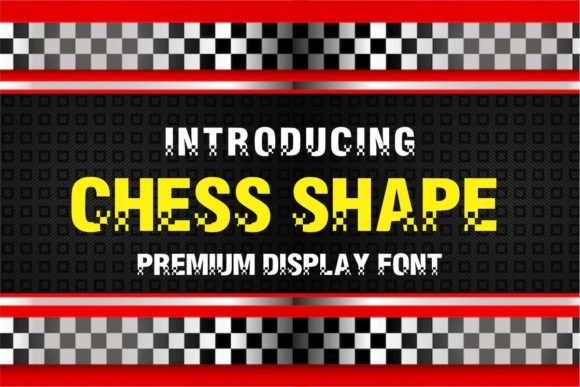
Checkmate Your Designs with the Chess Shape Font
Have you ever found yourself lost in the world of chess, only to have a brilliant idea strike you in the middle of a game? The thrill of victory, the agony of defeat – it’s all part of the chess experience. But what if you could capture that same essence of strategy and tactics in your designs? Introducing the Chess Shape Font, a decorative font that’s perfect for adding a touch of chess-inspired flair to your creative projects.
This font is not just for chess enthusiasts; it’s a valuable tool for designers looking to add a unique twist to their work. Whether you’re creating a game-themed logo, designing a t-shirt, or crafting a background for a website, the Chess Shape Font can help bring your ideas to life. With its chess-style design, it’s the perfect addition to any project that needs a touch of sophistication and strategy.
Key Features of Chess Shape Font
- Unique Character Set: Chess Shape Font features a custom-designed set of characters, including chess pieces, boards, and other related symbols, making it ideal for chess-themed projects.
- Legibility: Despite its unique character set, Chess Shape Font is designed to be highly legible, ensuring that the text remains clear and readable even at smaller font sizes.
Designer Review: Chess Shape Font
Overall, I think the Chess Shape Font is an interesting and unique font that could work well for specific projects. ✨ One of its strongest features is its versatility, as it can be used for both modern and traditional designs. It also has a wide range of applications, from graphic design to digital media.
- Unique shape-based design
- Supports a wide range of languages
However, there are some limitations to consider. ⚠️ For one, the font may not be suitable for body text due to its irregular shape and varying line heights. Additionally, the font’s complexity may make it difficult to use in certain situations, such as in small font sizes or with limited screen resolutions.
Despite these limitations, I think the Chess Shape Font has a lot of potential. With careful planning and consideration, it could be a great addition to any design project. Overall, I would give it 3.5 out of 5 stars.
Chess Shape Font is ideal for designs related to:
- Chess and board games.
- Strategy and planning.
- Business and finance.
For the best results, use Chess Shape Font in combination with other bold and geometric fonts to create a visually striking design.